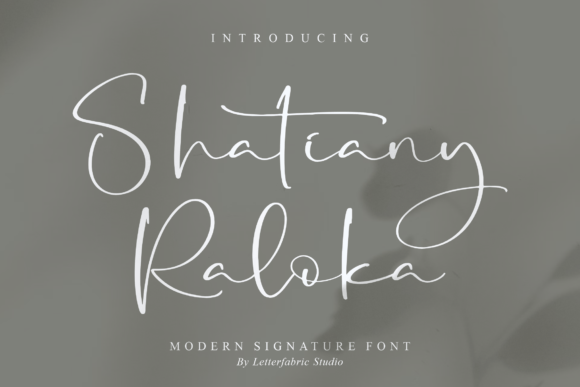
Introducing Shatiany Raloka Font, the epitome of elegance and sophistication in the world of calligraphy. This enchanting script font, crafted by the talented designers at Letterfabric, will transport you to a realm of vintage charm and timeless beauty.
Embark on a creative journey with Shatiany Raloka, where your words dance across the page with grace and allure. Its meticulously designed curves and flourishes evoke a sense of nostalgia, perfectly capturing the essence of bygone eras. Whether you're a seasoned designer or just starting, Shatiany Raloka will effortlessly elevate your designs, adding a touch of magic to every project.
Immerse yourself in the versatility of Shatiany Raloka, a font that seamlessly adapts to a multitude of creative endeavors. From logos and branding projects that exude professionalism to homeware designs that radiate warmth and charm, Shatiany Raloka is your perfect companion. Unleash your creativity and let your imagination soar as you witness your designs transformed into captivating masterpieces.
With Shatiany Raloka, you'll discover a font that effortlessly blends vintage aesthetics with modern elegance. Its timeless appeal makes it the ideal choice for product packaging that demands attention, mugs that tell enchanting stories, and quotes that resonate with profound beauty. Experience the joy of creating posters that captivate audiences, shopping bags that turn heads, and t-shirts that become conversation starters.
Shatiany Raloka's versatility extends beyond physical products, gracing book covers with an air of literary elegance, name cards that leave a lasting impression, and invitation cards that hint at the magic to come. Greeting cards adorned with Shatiany Raloka's graceful lines convey heartfelt messages, while labels and photography take on a new level of sophistication. Add a touch of timeless charm to watermarks, special events, and all your lovely projects that yearn for a beautiful script taste.
Shatiany Raloka Font isn't just a collection of letters; it's an invitation to step into a world of boundless creativity, where every design tells a captivating story. Its vintage charm and modern elegance will transform your projects into works of art, leaving a lasting impression on all who encounter them.